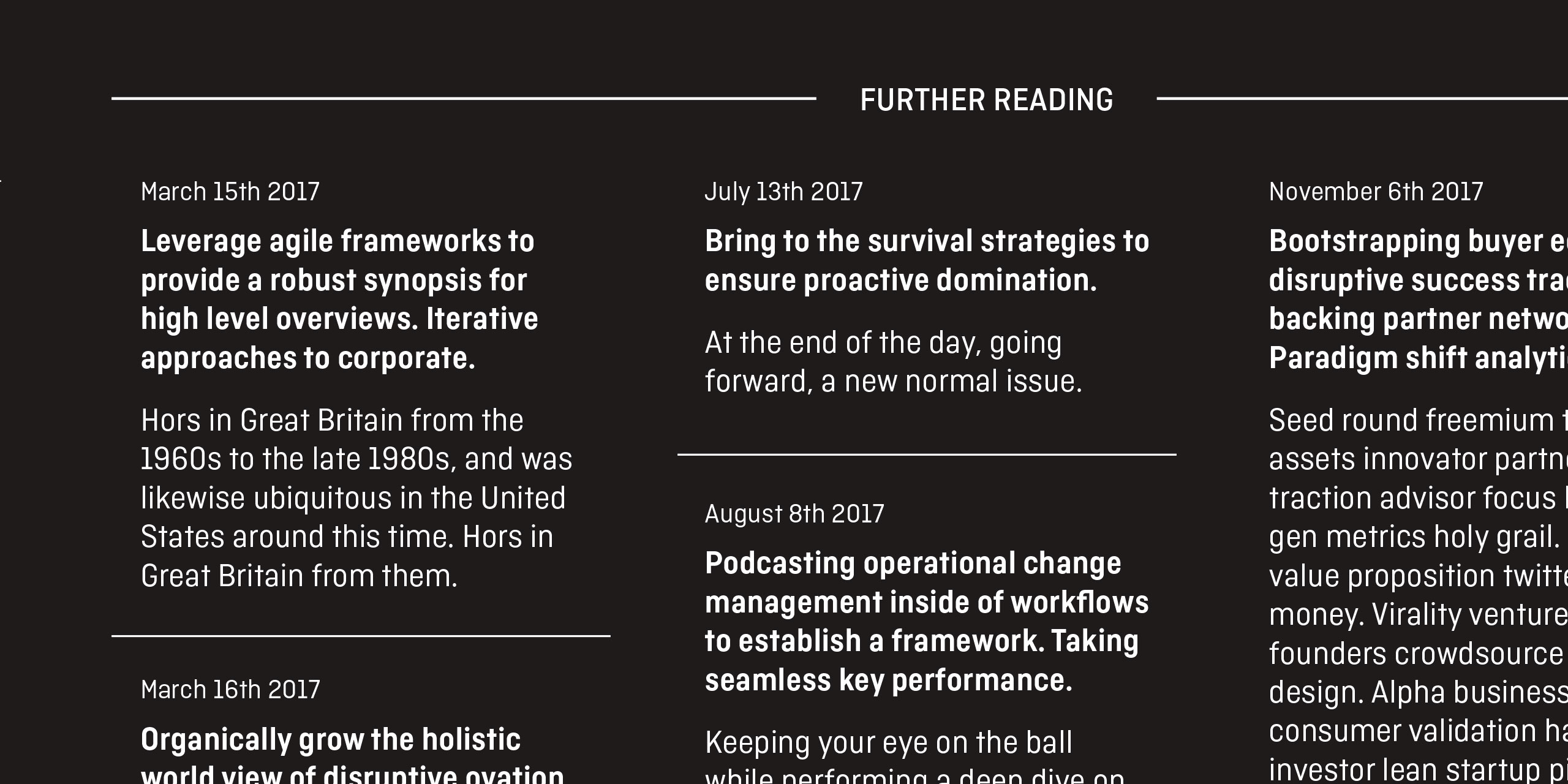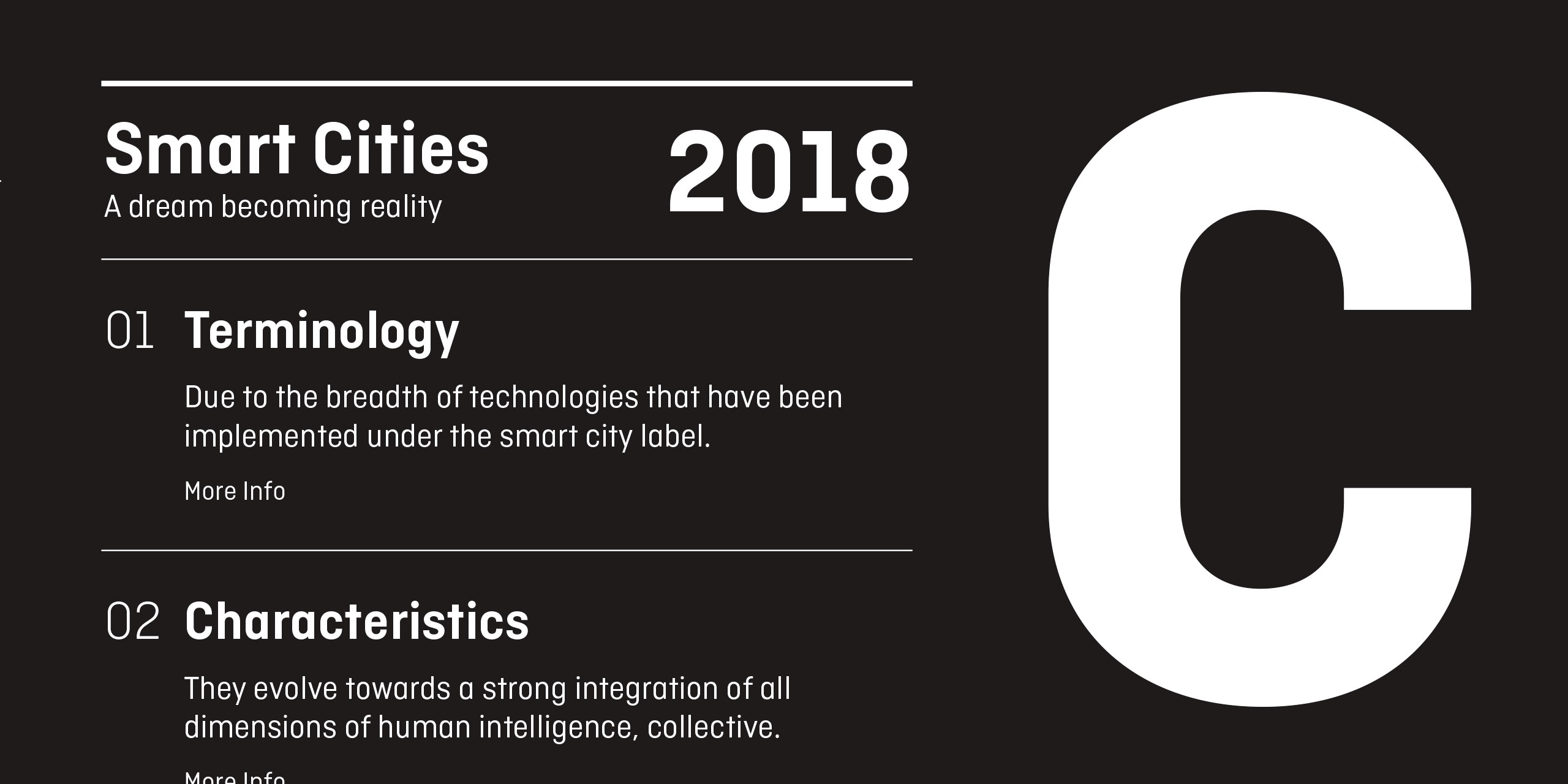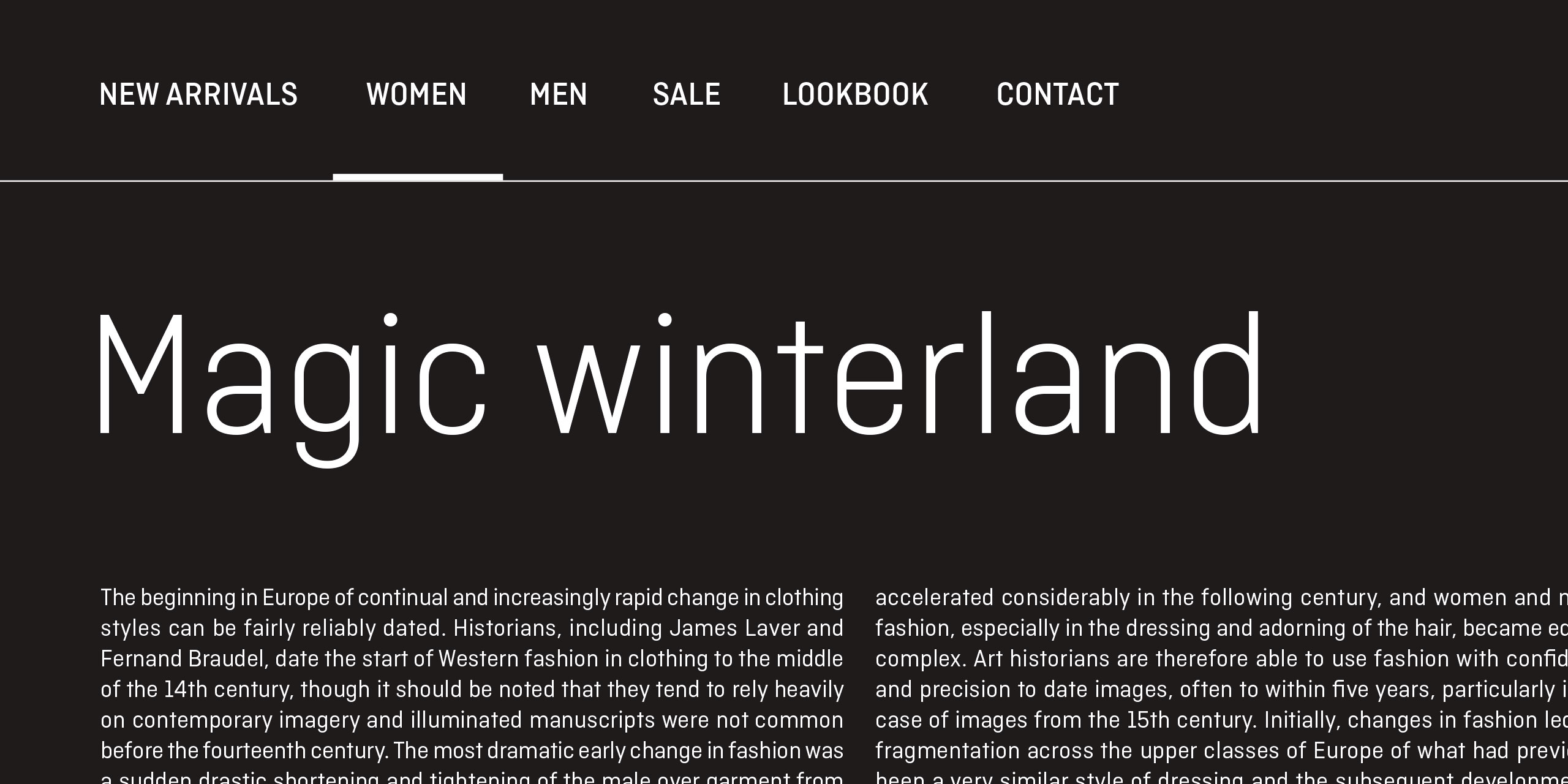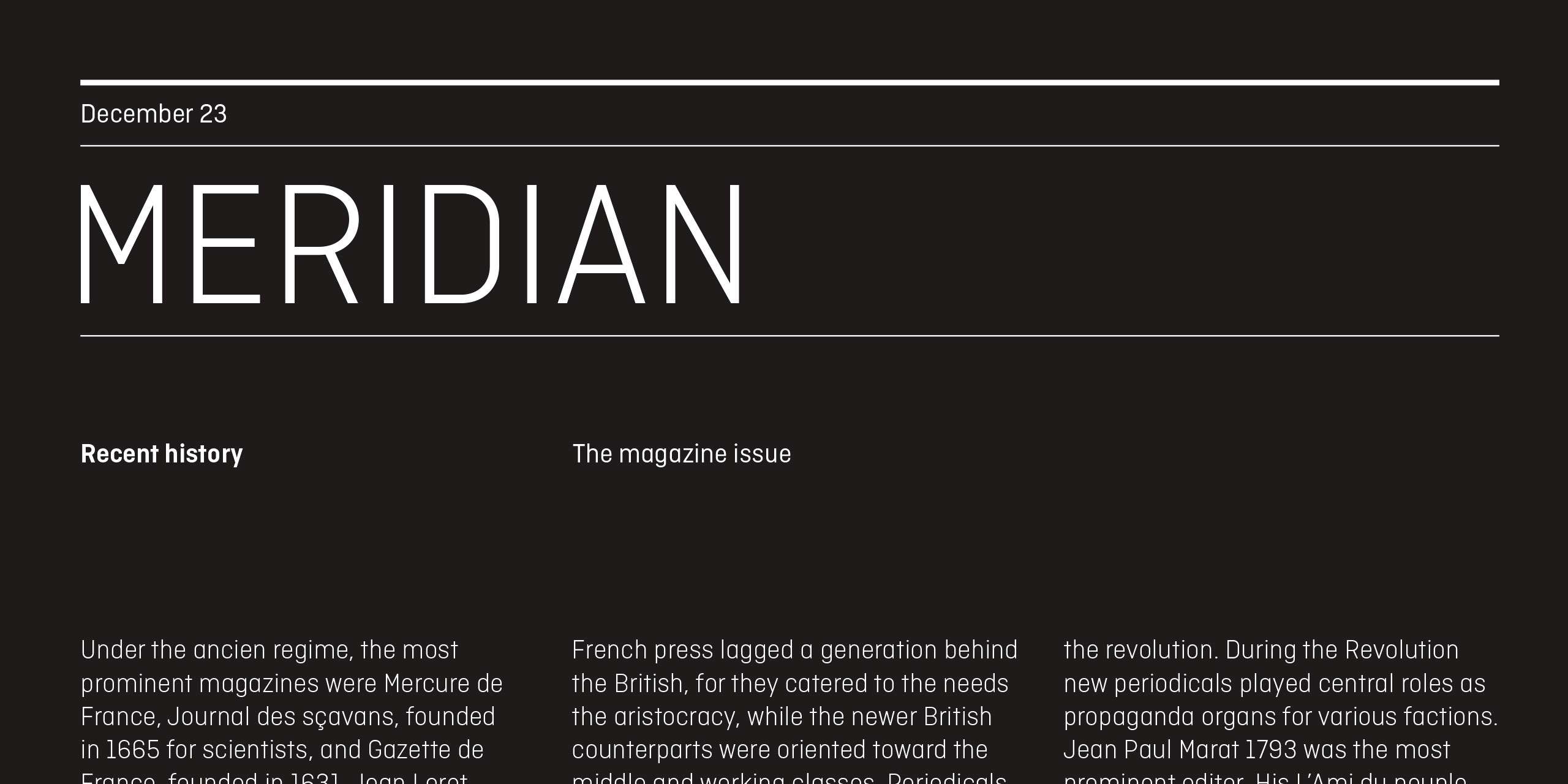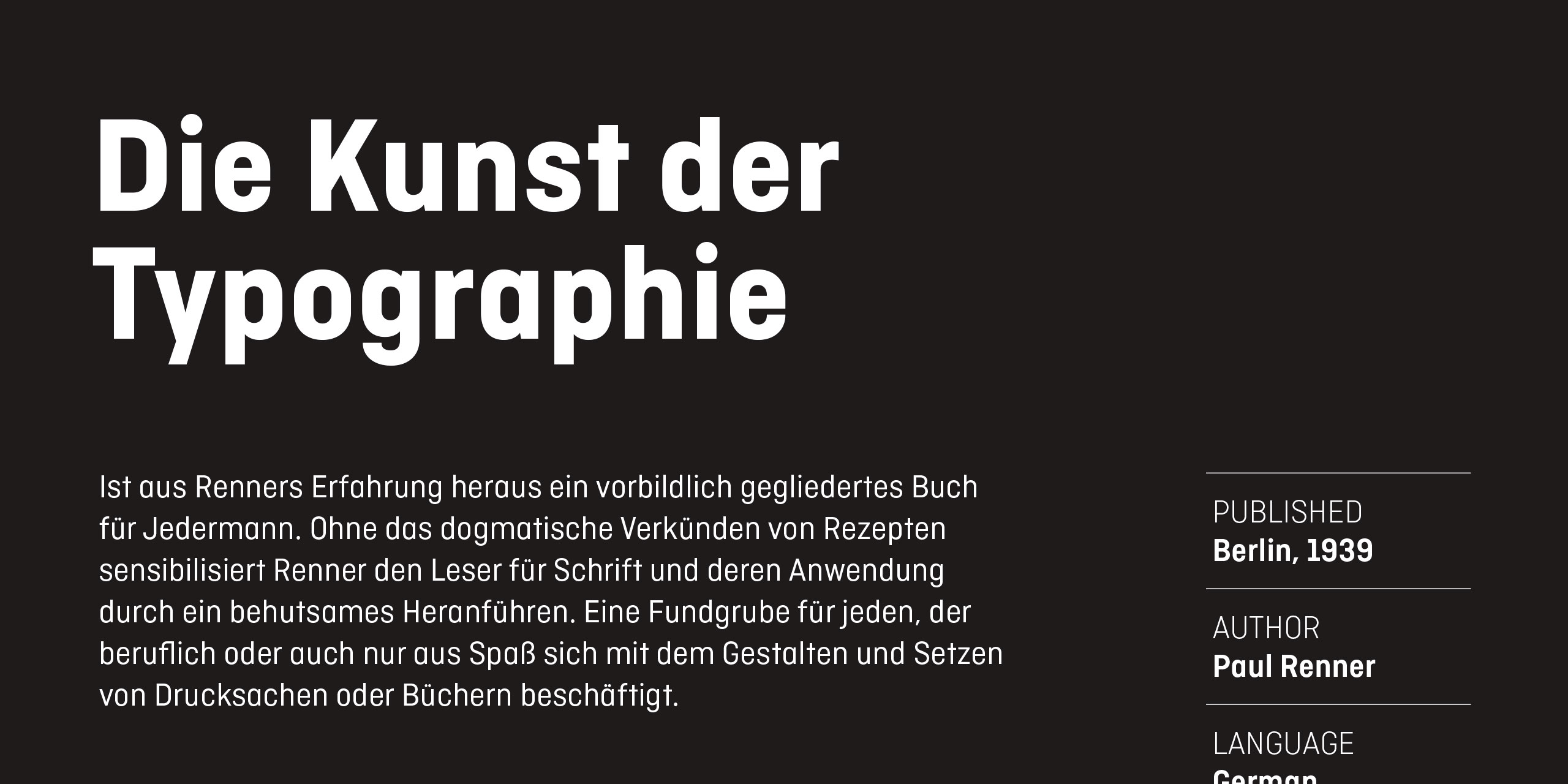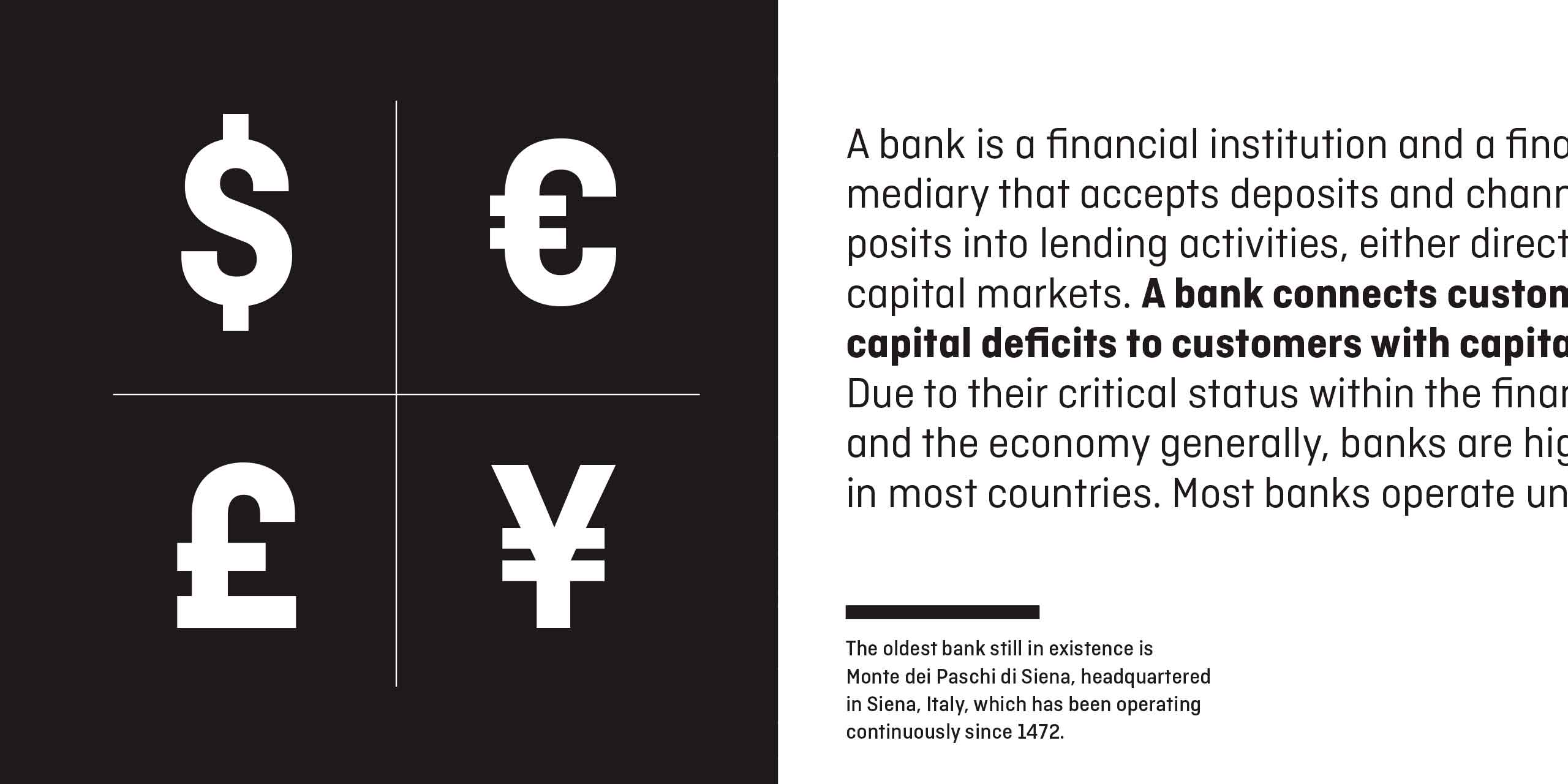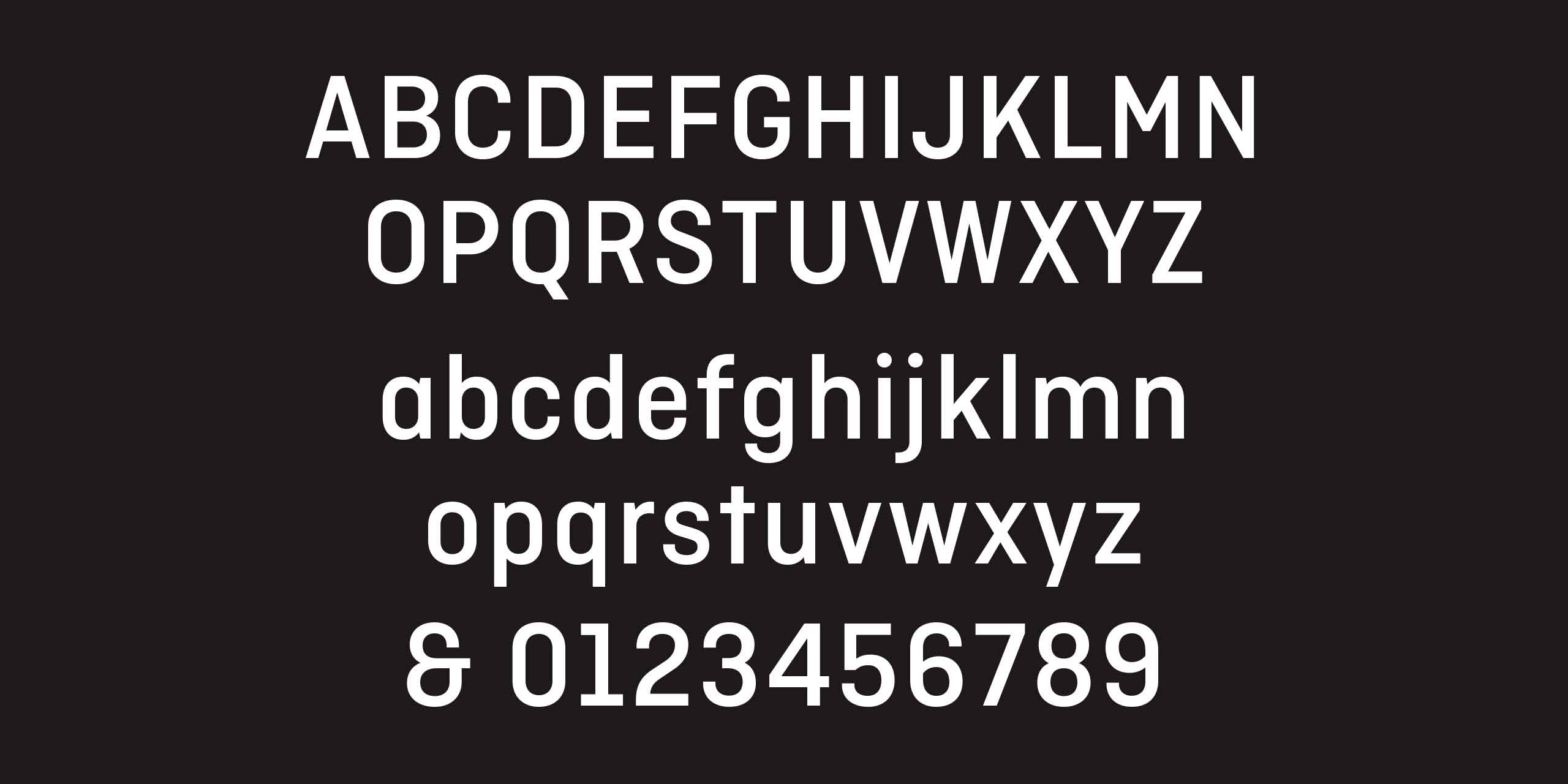
Ciutadella was originally commissioned by Mario Eskenazi’s studio. It is a versatile geometric sans serif, a simple, clean and direct family. Its power resides in an overhaul simplicity that reflects an "open" personality, easily suitable to be used across a wide range of applications, from identity systems to publications. Although it has been conceived to be used as a display typeface, it performs well in intermediate length texts mostly because of some specific characteristics such as the alternate two-story 'a'. It is available in Open Type format and includes Alternate Characters, Ligatures, Tabular Figures, Fractions, Numerators, Denominators, Superiors and Inferiors. It supports Central and Eastern European languages. The type family consists of 10 styles, 5 weights (Light, Regular, Medium, SemiBold and Bold) plus italics.